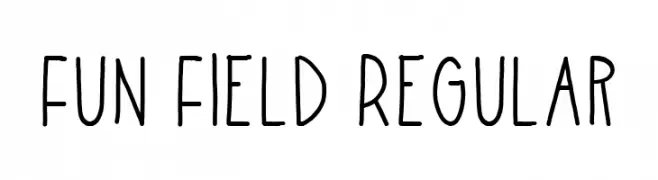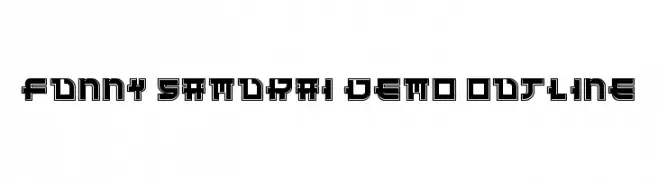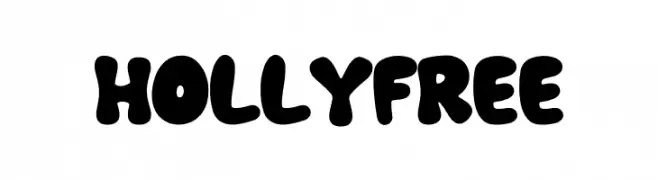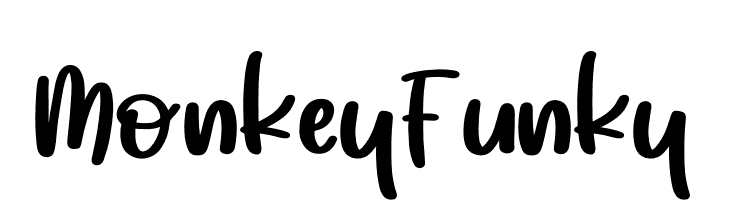
A playful, bold font with rounded, bubbly characters perfect for fun and informal designs.
A bold, dripping font with a dramatic and eerie style.
A playful, bold font with irregular strokes and a lively style.
A bold, expressive script font with fluid, interconnected strokes and a handcrafted feel.
A bold, italicized font with a modern and dynamic style.
A bold, geometric font with a futuristic and mechanical style.
A bold, geometric font with a striking outline and futuristic style.
A playful, handwritten font with tall, narrow characters and a casual vibe.
A modern, geometric sans-serif font with clean lines and uniform strokes.
A bold, playful handwritten font with rounded, dynamic letterforms.